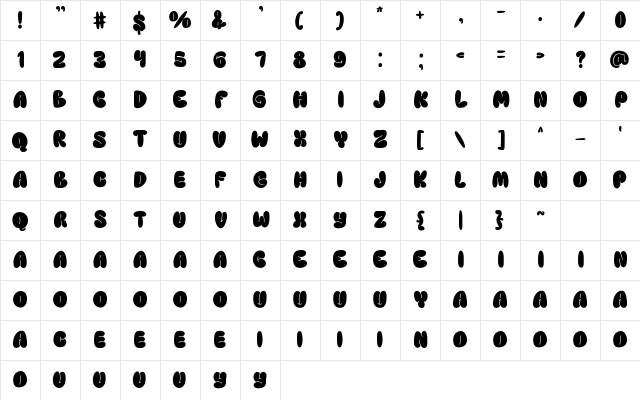
OFFWHITE Regular Free Font
OFFWHITE Regular
Foundry: TOKOPRESS
Designer: TOKOPRESS TEAM
Design Context for OFFWHITE
OFFWHITE is a composed and adaptable typeface that performs quietly and consistently across a wide range of design contexts.
Pro Tip: Use OFFWHITE in both headline and body roles to test its range before committing to a single application.